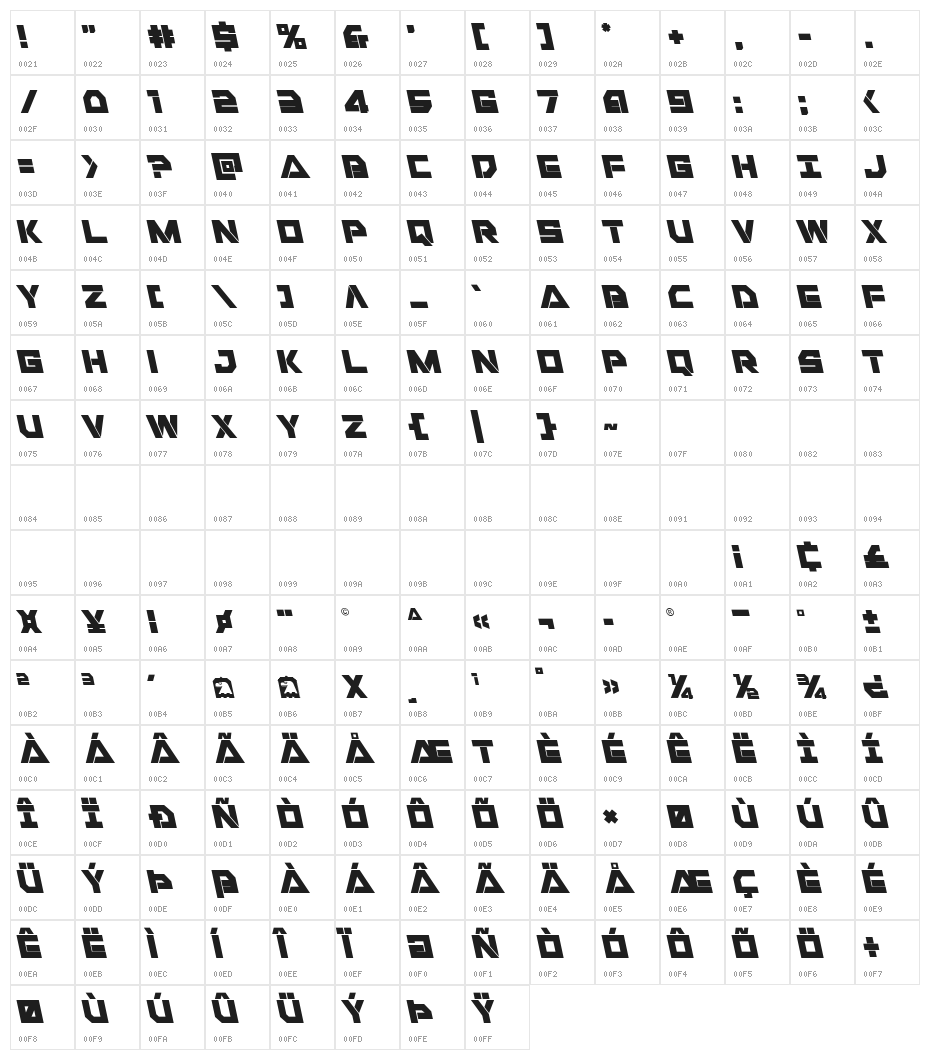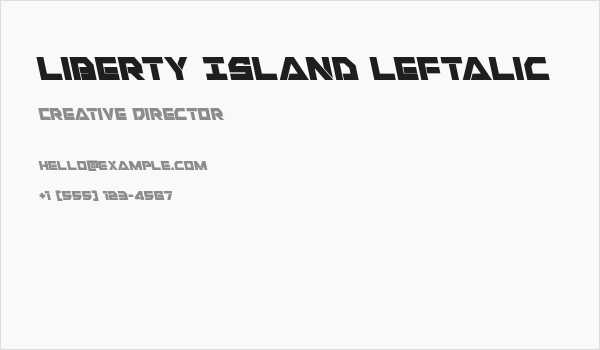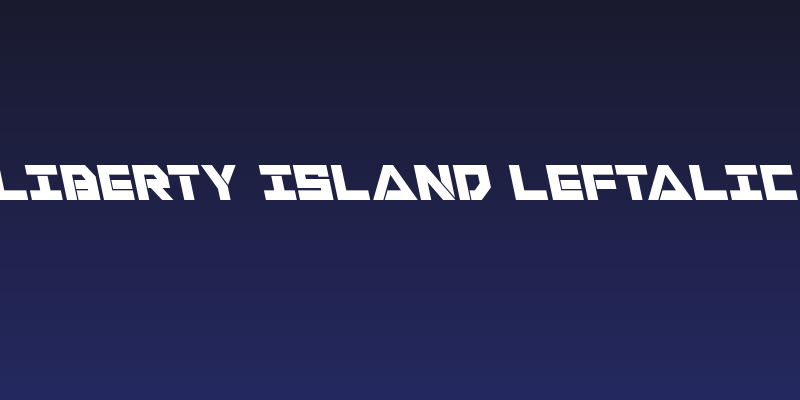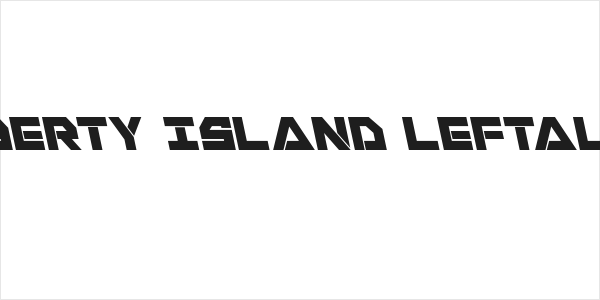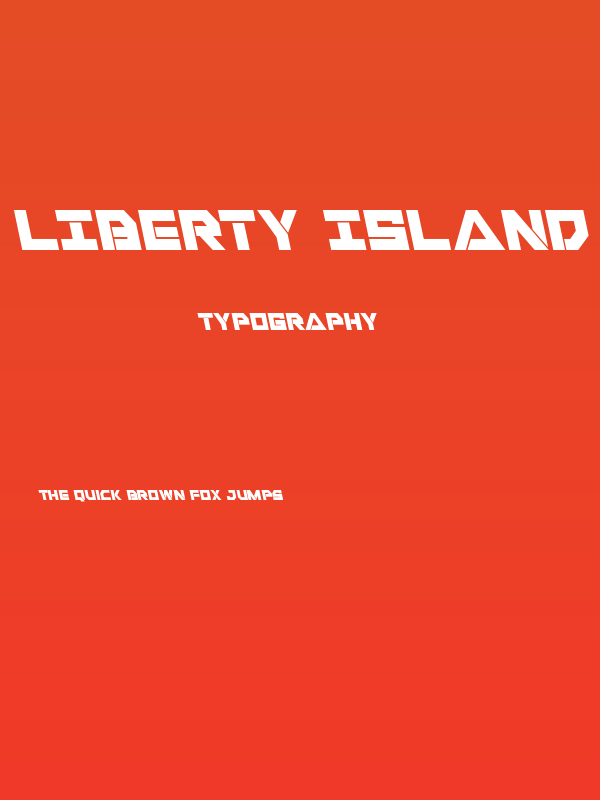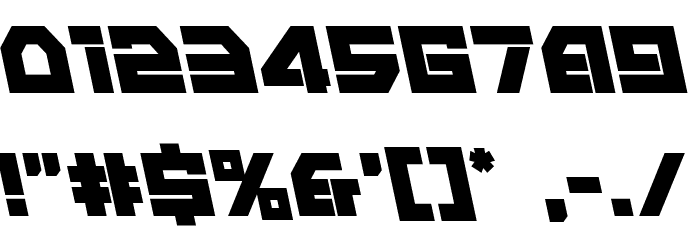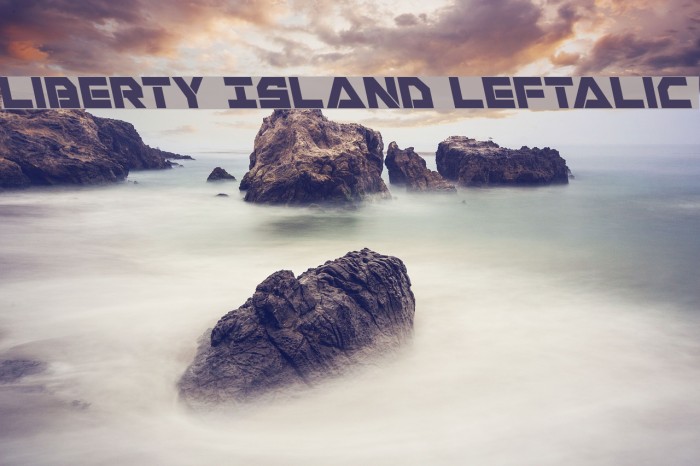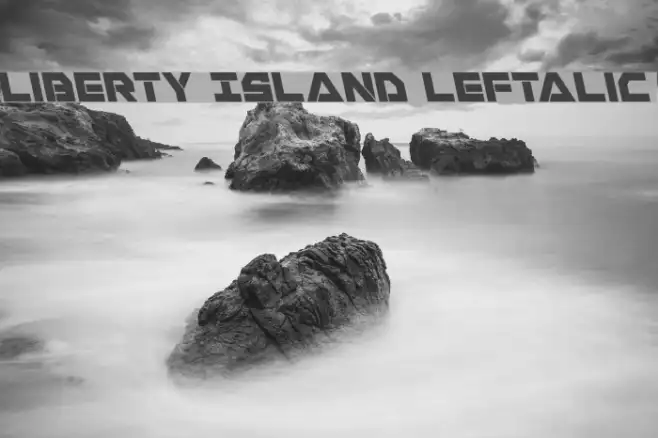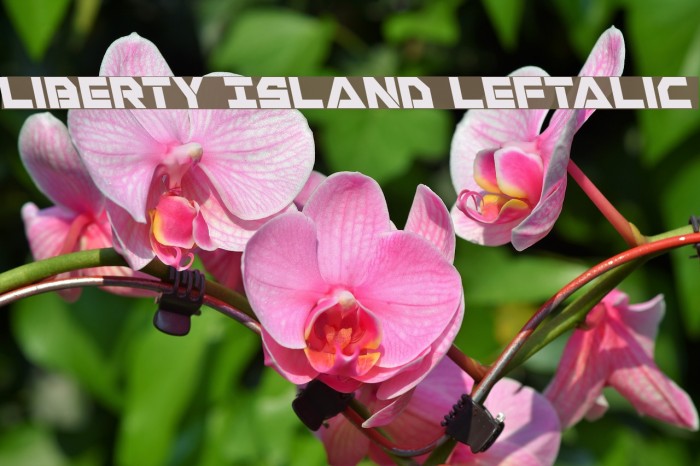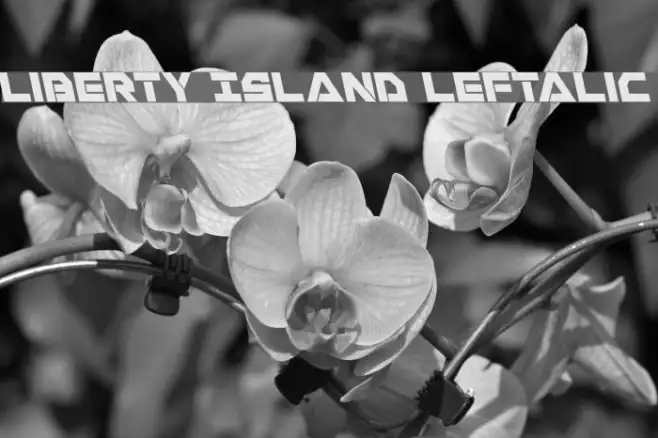
Liberty Island Leftalic Font
Liberty Island Leftalic Description
This font features a bold, angular design with a futuristic and geometric aesthetic. The characters are sharply cut with distinct edges, giving them a dynamic and powerful appearance. The uppercase letters are particularly striking, with a consistent slant that adds a sense of motion and energy. The numbers and special characters maintain the same bold and angular style, ensuring a cohesive look across all glyphs. This font is ideal for projects that require a strong visual impact and a modern, edgy feel.
| Proposed Projects | Ideal for sci-fi themed designs, video game titles, posters, and branding that requires a modern and impactful look. |